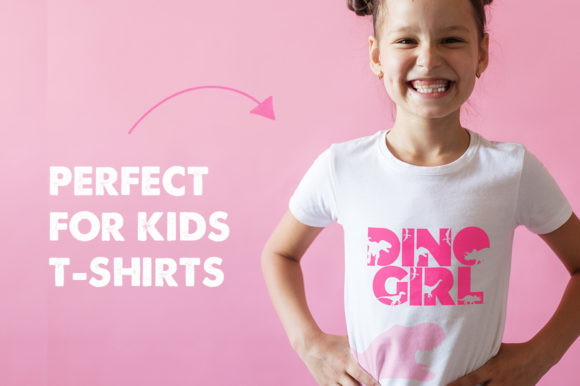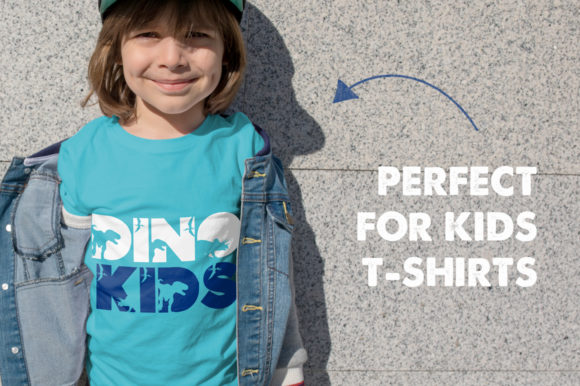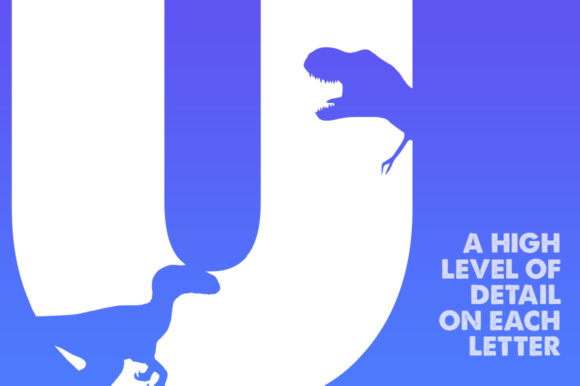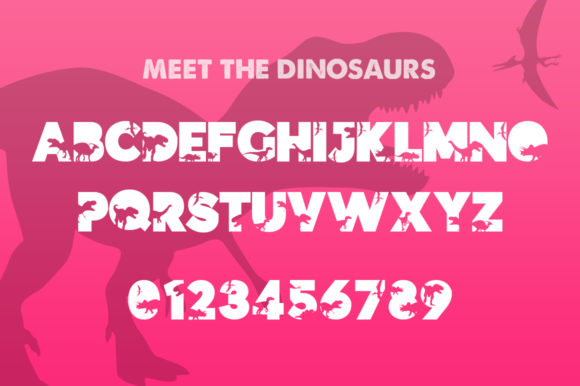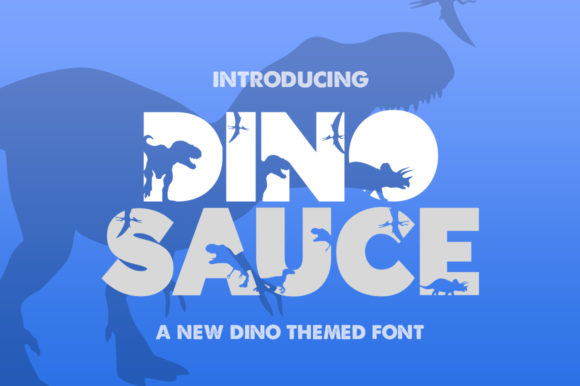
Dinosauce Font: Unleash the Prehistoric Fun in Your Designs!
Are you ready to take your kids-themed design projects to the next level? Look no further than the Dinosauce Font! This exciting font is packed with all your favorite prehistoric creatures, guaranteed to bring a smile to kids’ faces and make your designs roar with excitement.
What is Dinosauce Font?
Dinosauce Font is a unique and playful typeface that features a variety of dinosaurs, from the mighty T-Rex to the gentle Triceratops. This font is perfect for designers, crafters, and anyone looking to add a touch of prehistoric fun to their projects. With its bold and colorful design, Dinosauce Font is sure to capture the imagination of kids and adults alike.
Key Features of Dinosauce Font
- Prehistoric characters: The Dinosauce Font features a range of prehistoric creatures, including dinosaurs, pterodactyls, and more.
- Kids-friendly design: The font’s playful and colorful design makes it perfect for kids-themed projects, such as children’s books, posters, and party decorations.
- Easily customizable: The Dinosauce Font can be easily resized, rotated, and edited to fit your design needs.
Open the Door, Get on the Floor, Everybody Walk the Dinosaur!
Remember the catchy tune from the 80s hit song “The Dino Dance”? With the Dinosauce Font, you can bring that same energy and excitement to your designs. Imagine creating a kids-themed poster, and with just a few clicks, adding a T-Rex or a Velociraptor to the mix. The Dinosauce Font makes it easy to add a prehistoric twist to your projects.
Whether you’re a professional designer or a crafter looking for a fun and creative way to express yourself, the Dinosauce Font is the perfect tool for you. Use it to:
- Create engaging kids-themed content, such as children’s books, activity sheets, and educational materials.
- Design eye-catching posters, flyers, and brochures for kids’ events, parties, and attractions.
- Make unique and personalized gifts, such as customized t-shirts, mugs, and tote bags.
- Add a prehistoric touch to your craft projects, such as scrapbooking, card making, and paper crafting.
To get the most out of the Dinosauce Font, here are a few tips and inspiration ideas:
- Mix and match different dinosaurs to create a fun and playful design.
- Use the font to create a themed design project, such as a dinosaur-themed party invitation or a kids’ bedroom wall decal.
- Combine the Dinosauce Font with other fonts and graphics to create a unique and eye-catching design.
Get Ready to Roar with Excitement!
Open the door, get on the floor, everybody walk the dinosaur! With the Dinosauce Font, you’ll be creating roar-some designs in no time!